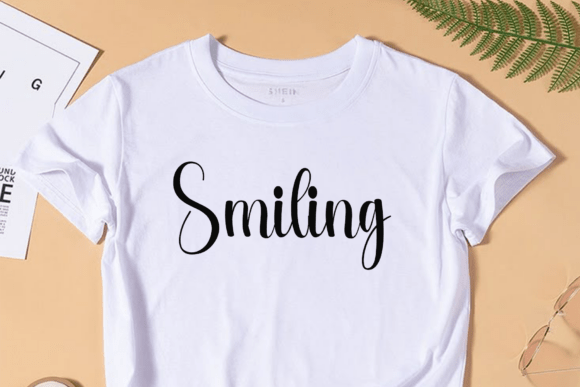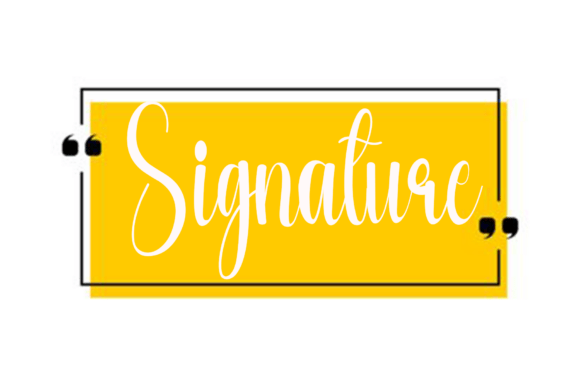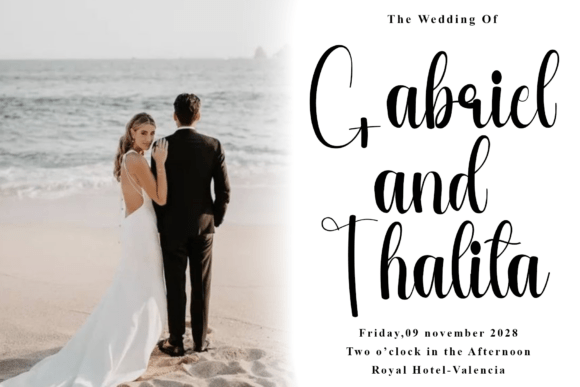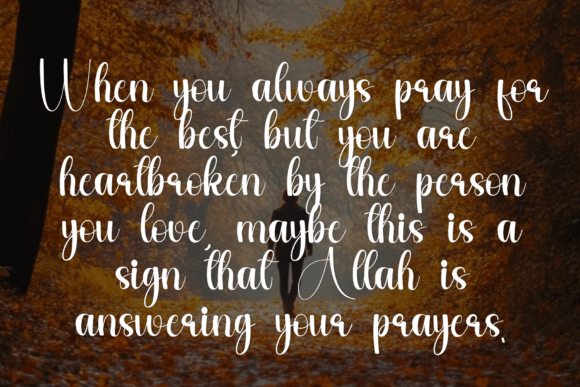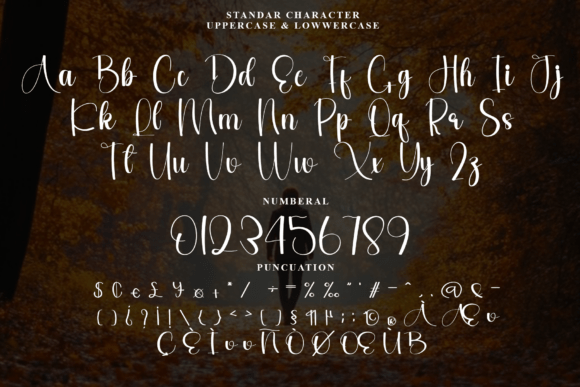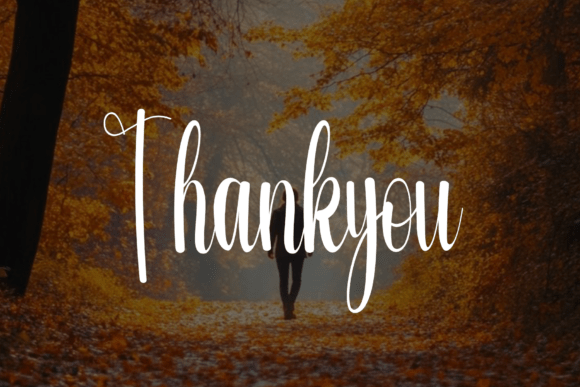
Discover the Elegance of Autumn Behinding Font
As the seasons change and autumn leaves begin to fall, a new font has emerged to capture the crisp elegance of the season. Introducing Autumn Behinding, a unique and professional addition to the modern handwritten collection. This stunning font is designed to evoke a sense of clarity and sophistication, making it perfect for designers and crafters looking to add a touch of refinement to their work.
The Characteristics of Autumn Behinding
Autumn Behinding features tall, thin strokes with a subtle, airy slant, giving it a refined aesthetic that feels as fresh as a mountain breeze. Its clean and approachable style makes it an ideal choice for a variety of design applications, from travel photography to branding for outdoor gear and sophisticated web design. The font’s elegant and crisp lines are sure to add a touch of sophistication to any project.
What Makes Autumn Behinding Stand Out
So, what sets Autumn Behinding apart from other fonts in the modern handwritten collection? Here are just a few key characteristics that make it a standout:
- Tall, thin strokes: Autumn Behinding’s tall, thin strokes give it a sense of elegance and refinement, making it perfect for designs that require a touch of sophistication.
- Subtle, airy slant: The font’s subtle slant adds a sense of movement and energy to any design, making it perfect for travel photography and outdoor gear branding.
- Clean and approachable style: Autumn Behinding’s clean and approachable style makes it easy to read and understand, making it perfect for web design and other applications where clarity is key.
Using Autumn Behinding in Your Designs
Autumn Behinding is a versatile font that can be used in a variety of design applications. Here are just a few ideas to get you started:
- Travel photography: Autumn Behinding’s elegant and refined aesthetic makes it perfect for travel photography. Use it to add a touch of sophistication to your photo captions and titles.
- Outdoor gear branding: The font’s clean and approachable style makes it ideal for branding outdoor gear and equipment. Use it to create a strong and recognizable brand identity.
- Sophisticated web design: Autumn Behinding’s crisp and elegant lines make it perfect for web design. Use it to create a refined and sophisticated website that stands out from the crowd.
Tips for Getting the Most Out of Autumn Behinding
Here are a few tips for getting the most out of Autumn Behinding:
- Use it with contrasting fonts: Autumn Behinding’s elegant and refined aesthetic makes it perfect for pairing with contrasting fonts. Try pairing it with a bold and playful font for a striking contrast.
- Experiment with different colors: The font’s clean and approachable style makes it easy to read and understand, even in different colors. Try experimenting with different colors to find the perfect look for your design.
- Don’t be afraid to get creative: Autumn Behinding is a versatile font that can be used in a variety of design applications. Don’t be afraid to get creative and try new things!
Autumn Behinding is a unique and professional addition to the modern handwritten collection. Its elegant and refined aesthetic makes it perfect for designers and crafters looking to add a touch of sophistication to their work. With its tall, thin strokes and subtle, airy slant, Autumn Behinding is sure to become a favorite font for anyone looking to create beautiful and effective designs.